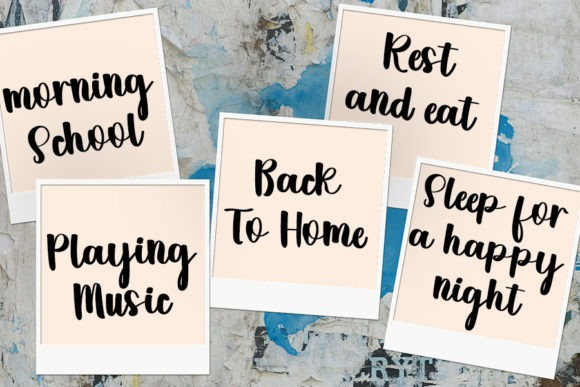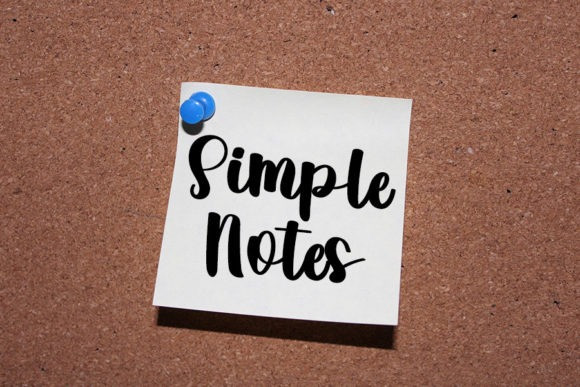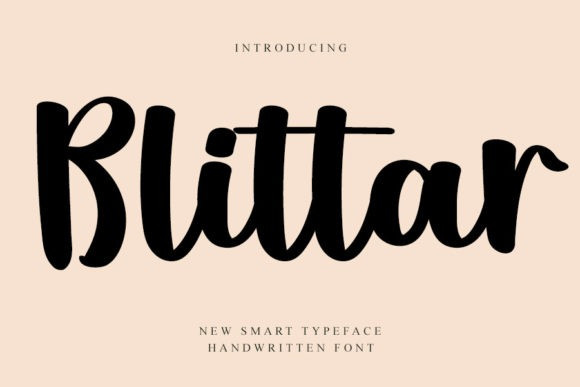
Blittar Font
Blittar Script Font is a trendy script handwritten font that exudes vividness and class. This font was particularly crafted for those who need a beautiful and refreshing look to their designs.